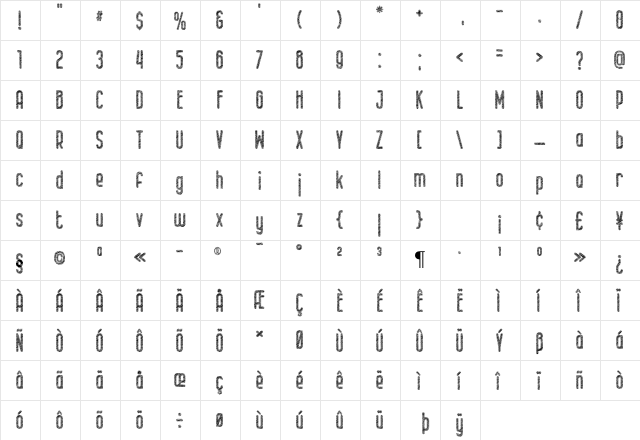
Kid Knowledge 2 Clean Regular
Design Context for Kid Knowledge 2 Clean Typeface
Kid Knowledge 2 Clean takes a measured approach to typography — its balanced proportions and neutral character make it a reliable workhorse for both digital and print work.